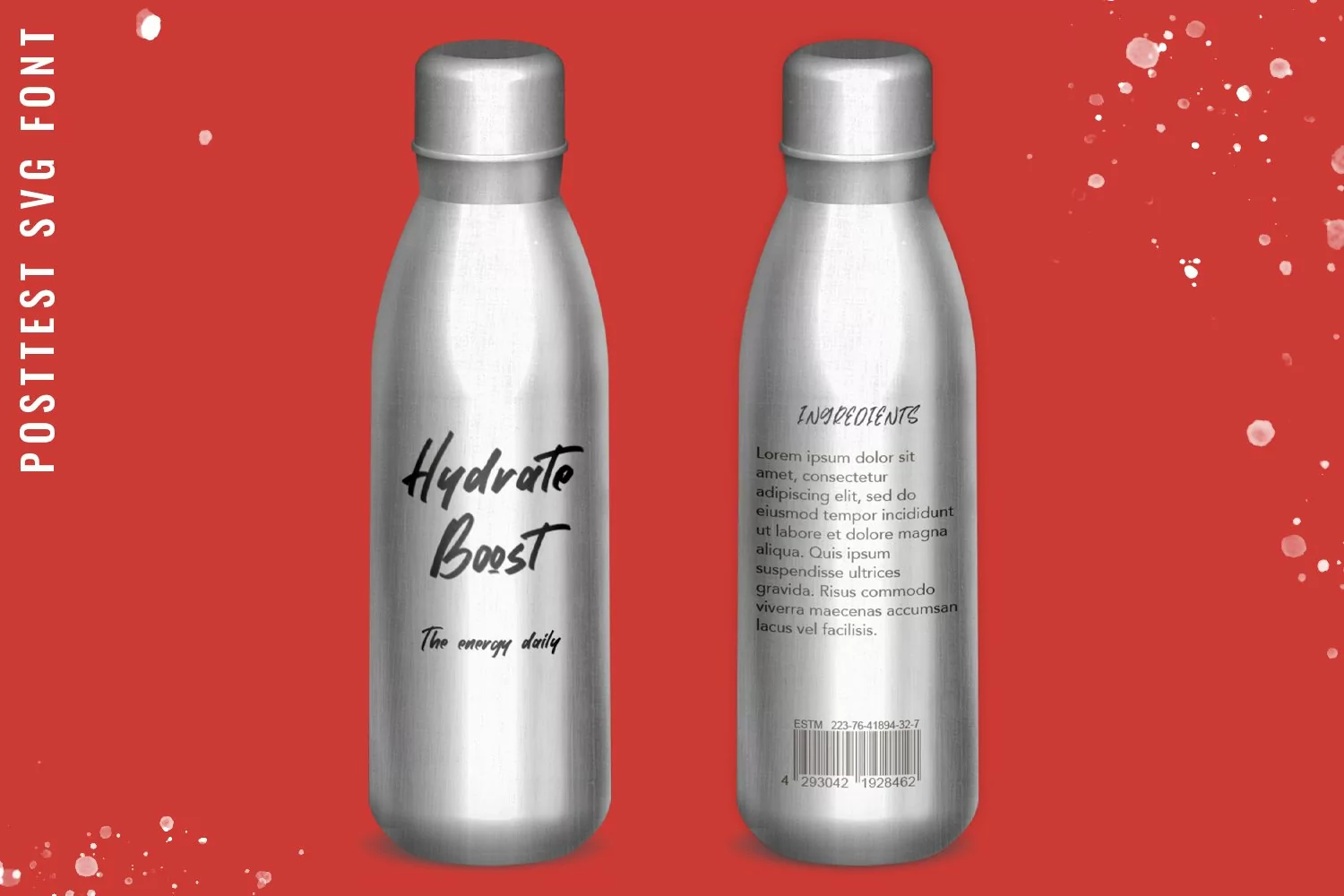
Posttest - Stunning SVG Font
that contain lowercase, uppercase, symbol, and also support multi language. There’s a lot ligatures in this font. This Font also comes with ligatures, alternates and many more. this font suitable for fashion, branding, catalog and other design what you want.